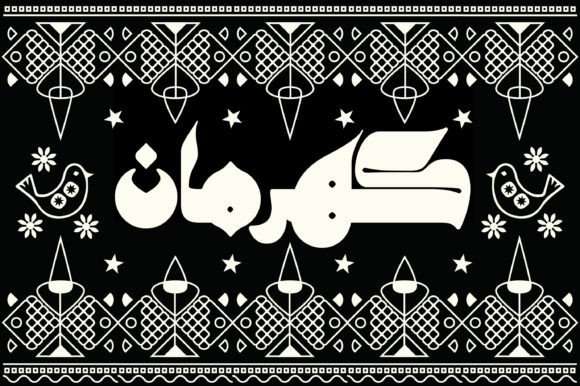
Venture into a world of enchanting narratives and captivating visuals with Kahraman, the Arabic display font that ignites imagination and transports you to the heart of the One Thousand and One Nights. Inspired by the rich tapestry of Arabian folklore, Kahraman's letterforms dance with a unique flair, echoing the tales of love, loss, and adventure that have captivated generations.
Immerse yourself in the magic of this font, meticulously crafted to capture the essence of the Arabian Nights. Each character bursts with personality, embodying the vibrant spirit of the stories they adorn. From illustrations to love poems, Kahraman becomes an integral part of your creative journey, adding a touch of authenticity and charm to every project.
Unleash the beauty of Kahraman in your print designs, web creations, and mobile applications. Its versatility knows no bounds, adapting seamlessly to a myriad of platforms. With Kahraman, your designs transcend mere aesthetics, becoming immersive experiences that transport users to the heart of ancient Arabia.
Embark on a typographic odyssey with Kahraman, a font that breathes life into your creative aspirations. Its distinctive style and spontaneous design make it the perfect companion for expressing your unique vision. Whether you seek to weave enchanting tales, share heartfelt emotions, or simply add a touch of Arabian magic to your designs, Kahraman stands as your trusted ally.
Seize the opportunity to make your designs shine brighter than the stars in the Arabian sky. Embrace Kahraman, the font that transforms words into art, stories into experiences, and imaginations into reality. Its captivating charm and undeniable elegance will leave an everlasting impression on your audience, ensuring your designs resonate with a depth and beauty that transcends time.